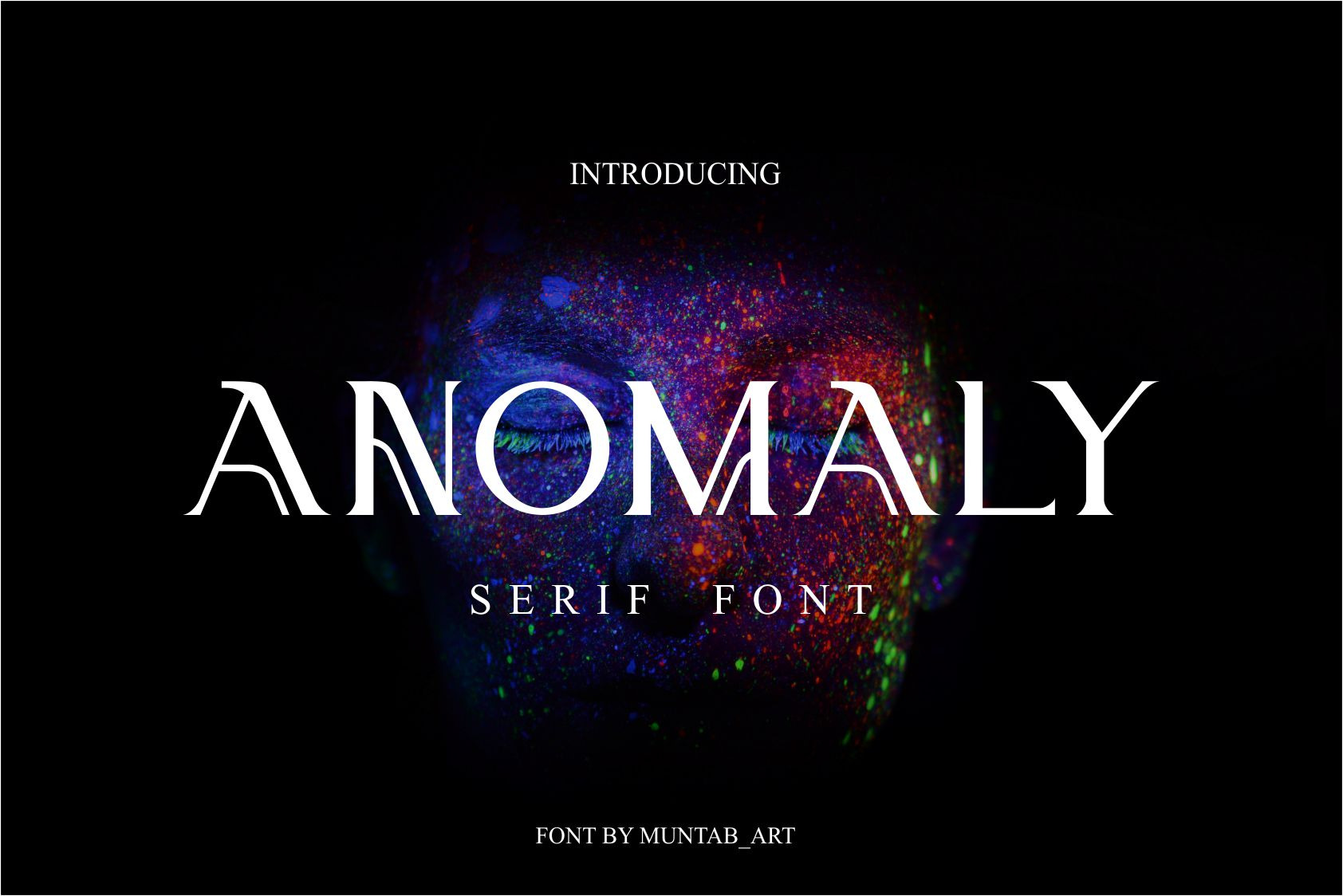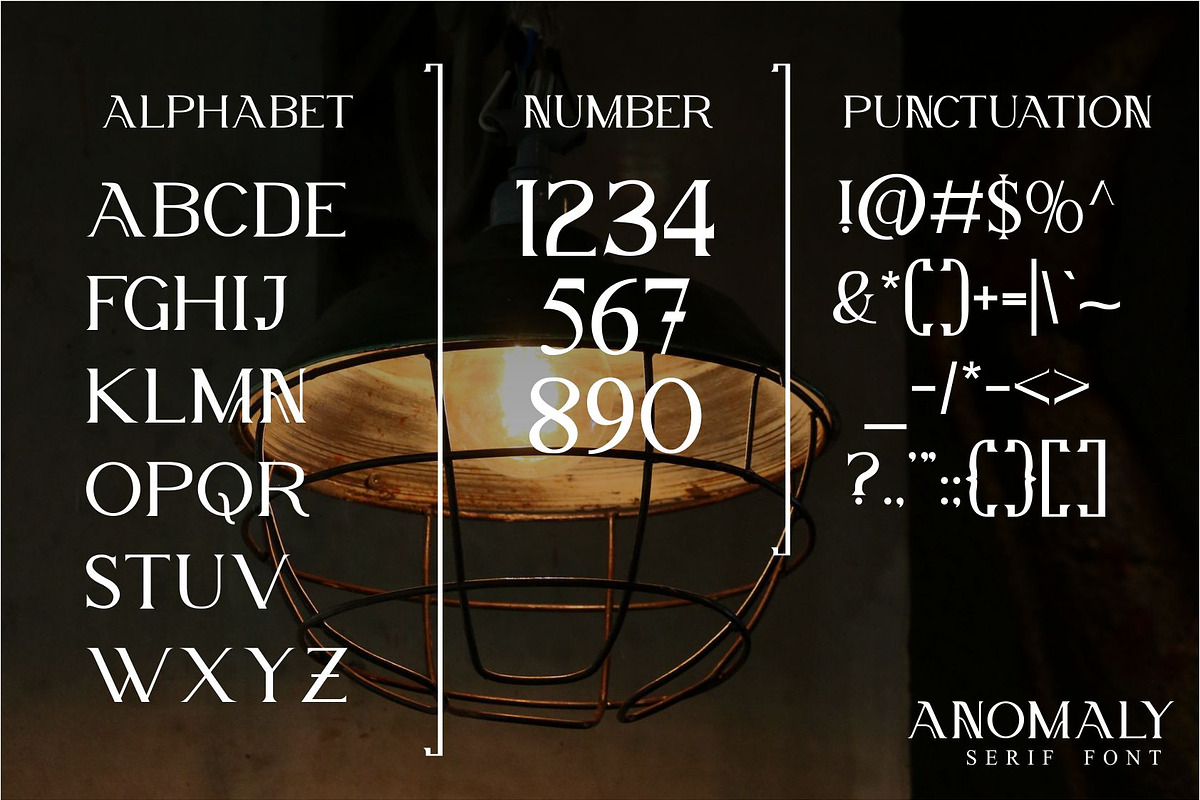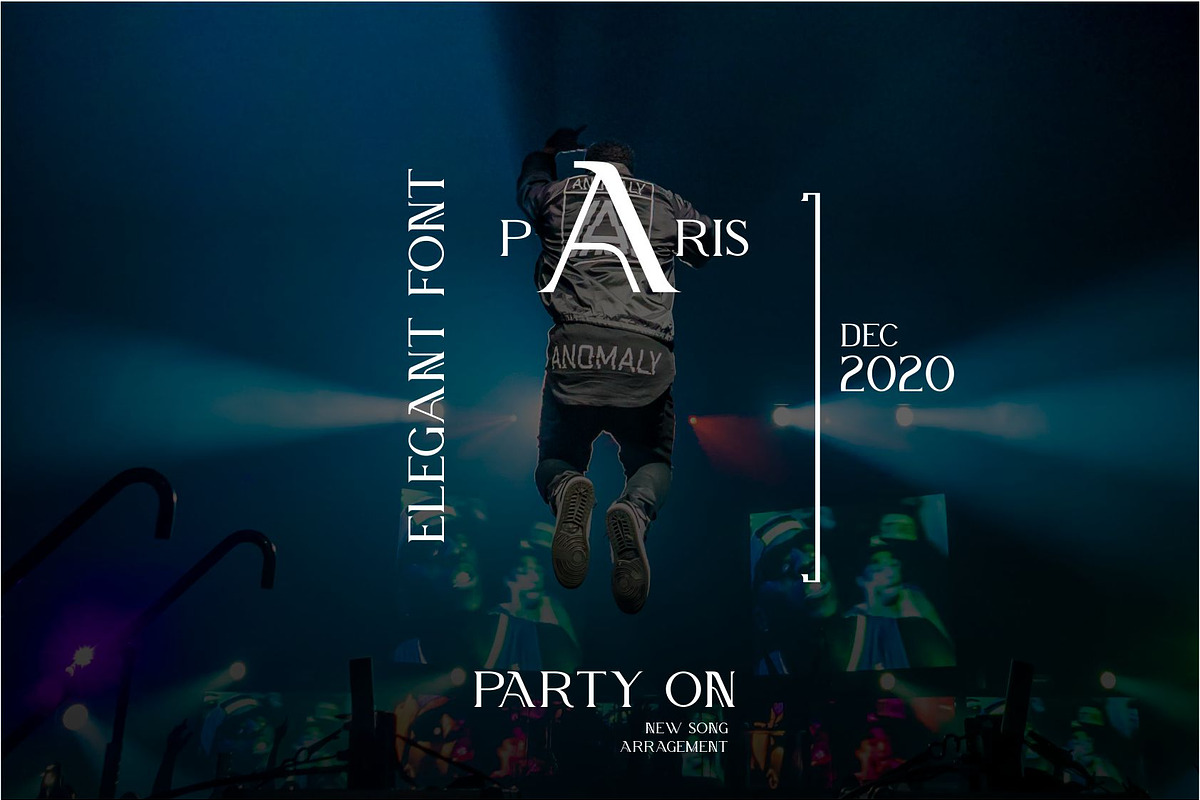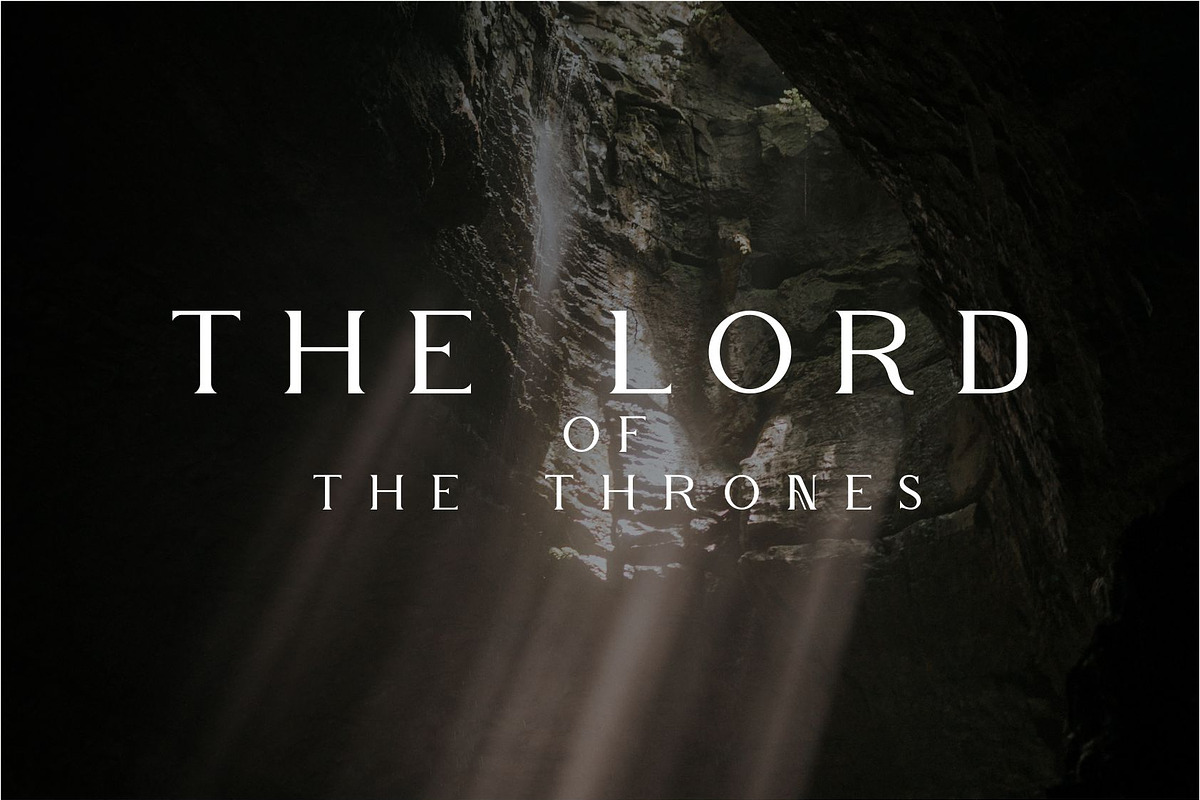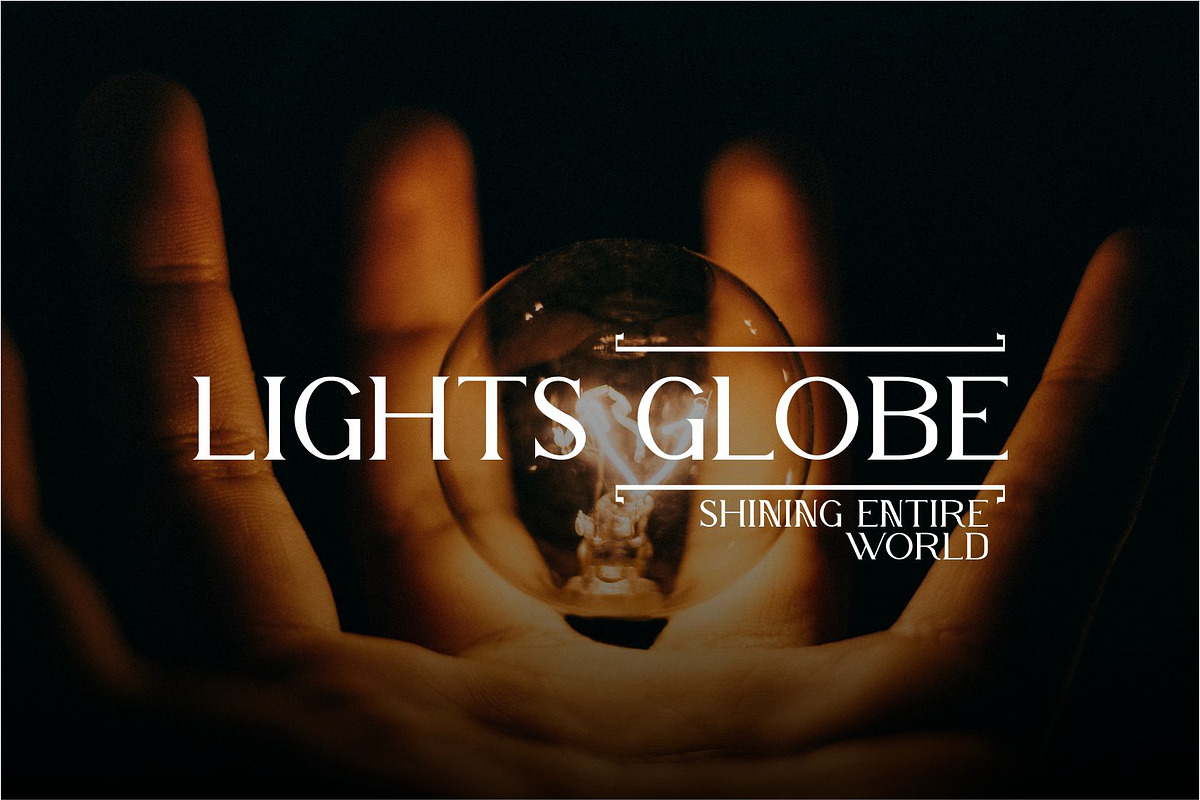
Anomaly | Modern Serif Font
Anomaly fonts includes uppercase letters, numerals, a large range of punctuation. Serif font with modern style. Created for poster, web design, branding, illustrations, badges and some other works.